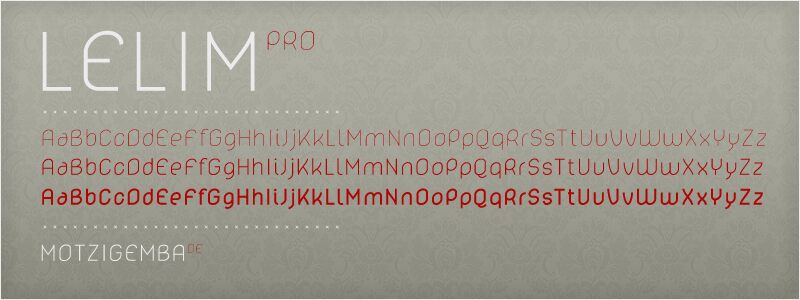
Lelim 300 by Stefan Motzigemba is a free monoline sans serif with a spare, contemporary appearance. Its very light strokes travel through broad curves and tall, simple forms, with softly rounded turns instead of hard geometric corners. The lettering feels calm and unforced.
That restrained drawing can suit fashion branding and gallery posters, where understated type leaves attention on photography, but it also fits wellness packaging and clean digital graphics that benefit from a gentle voice. Among these uses, it is most convincing in refined brand work built around thin lines, airy imagery, and minimal product details.